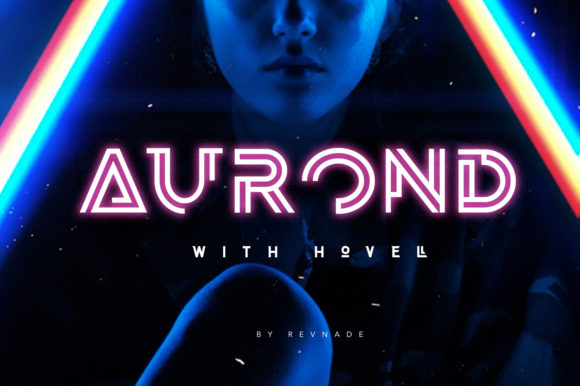
The Futuristic Charm of Aurond Font: A Designer’s Delight
I still remember the thrill of working on a futuristic sci-fi project, determined to create a visual identity that would transport my audience to another galaxy. The client wanted a bold, eye-catching font that would scream “neon-lit cityscape” – and I was on a mission to find it. That’s when I stumbled upon Aurond Font, a sleek and cool font with a neon vibe that instantly captured my attention. In this article, I’ll share my experience with Aurond Font, its features, and how to make the most of it in your designs.
An Honest Review of Aurond Font
What I Love About Aurond Font
- ✨ Sleek and Futuristic Design: Aurond Font boasts a modern, high-tech look that’s perfect for projects that require a bold, attention-grabbing font.
- ✅ Excellent Legibility: Despite its futuristic design, Aurond Font remains highly legible, even at smaller font sizes.
- 💡 Neon-Like Glow: The font’s subtle glow effect adds a touch of neon magic to your designs, making them stand out in a crowd.
While Aurond Font is an excellent choice for many projects, there are a few things to keep in mind:
- ⚠️ Limited Use in Formal Contexts: Due to its bold, futuristic design, Aurond Font might not be the best fit for formal or traditional projects.
- 🤔 Glyph Limitations: While Aurond Font has a range of glyphs and stylistic alternates, it might not have every special character you need.
The Designer Inspiration Behind Aurond Font
Aurond Font was inspired by the neon-lit cityscapes of Tokyo and Hong Kong. Its designer, a young and talented typographer, wanted to capture the essence of futuristic design while maintaining legibility and style. The result is a font that’s both bold and beautiful.
Q: What type of projects is Aurond Font best suited for?
A: Aurond Font is perfect for projects that require a bold, futuristic look, such as sci-fi movies, video games, and tech branding.
Q: Is Aurond Font available in different weights and styles?
A: Yes, Aurond Font comes in various weights and styles, allowing you to experiment with different looks and feels.